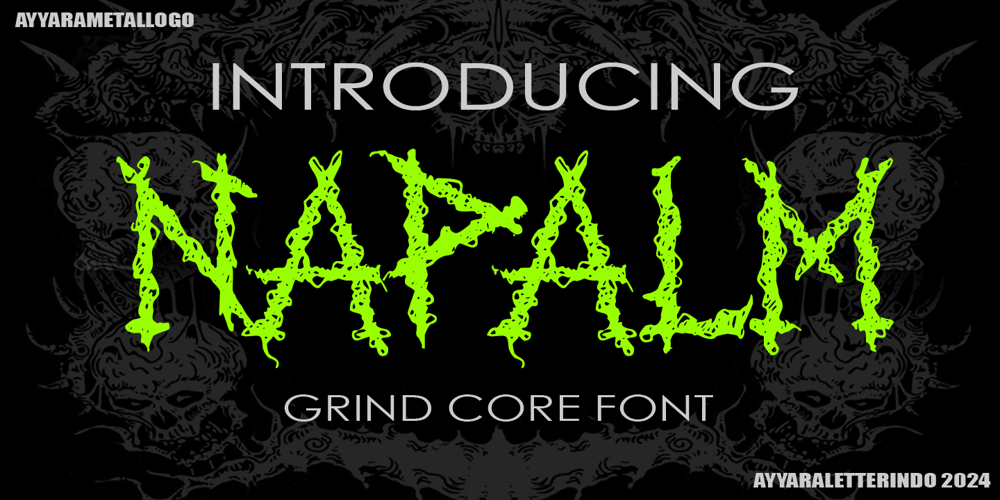
Napalm Font Family was designed by published by Ayyara Letterindo. Napalm contains 1 styles and family package options. Napalm font is a Grind core font, this font that you can be used for band logos, band tittles, backprint of your bands, Tshirt design, hoodie, band flyer or any poster promotion, you can immediately make with the help of this font.Napalm font is influenced from the mighty English grindcore band, and who’s very famous in the world, so if your band or design have a the same genre, you should be use this font for your great project and also make your design is amazing with ease and fast.